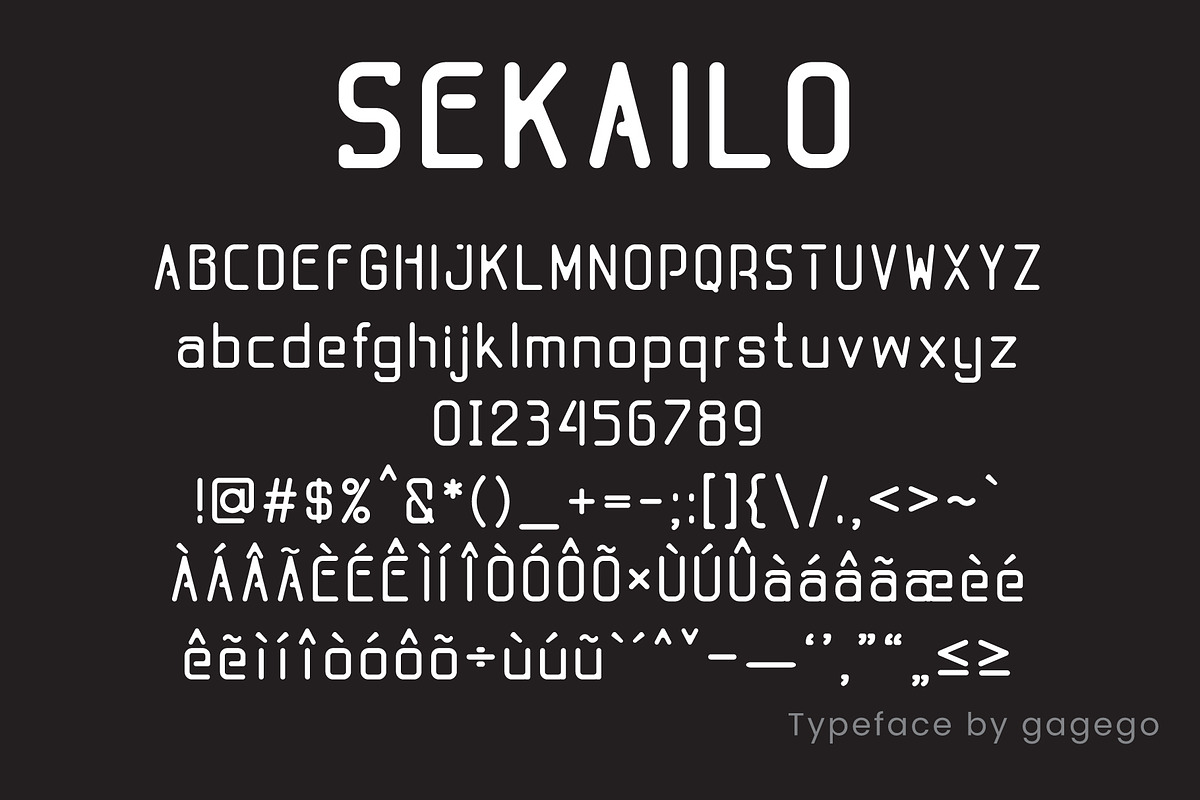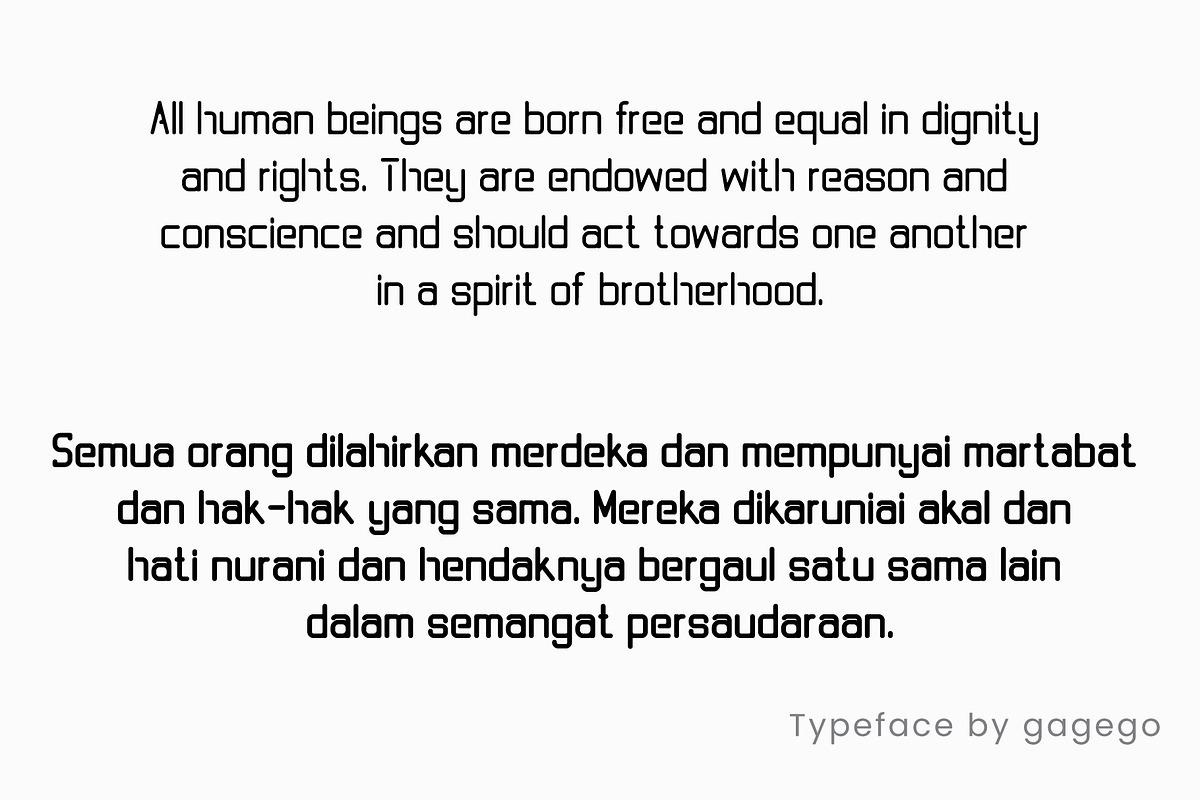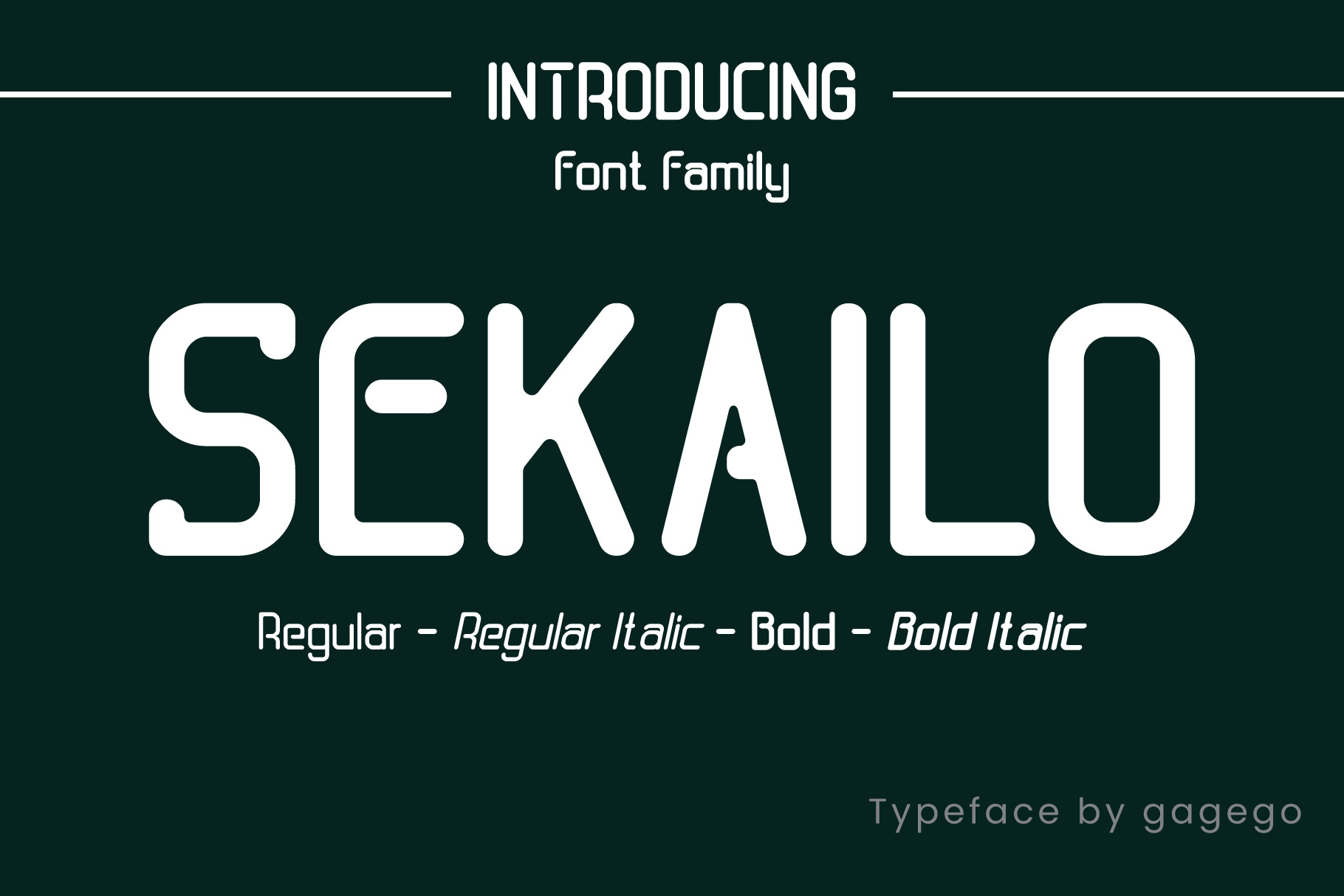
SEKAILO FONT SANS SERIF
We provide a unique but interesting font, the name of the font is SEKAILO font. This font is suitable for making books or banners and whatever, because this font looks relaxed, happy, joyful, and unique. SEKAILO font is available in 4 font styles
- Regular Italic
- Bold
- Bold Italic